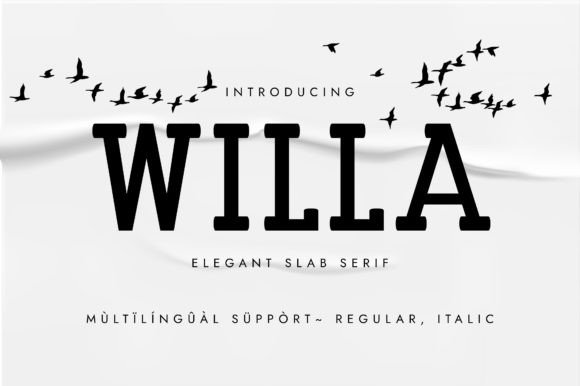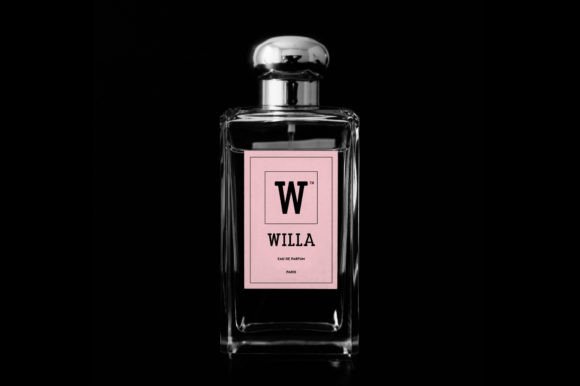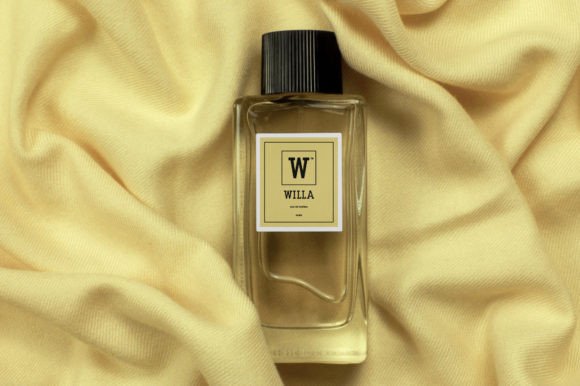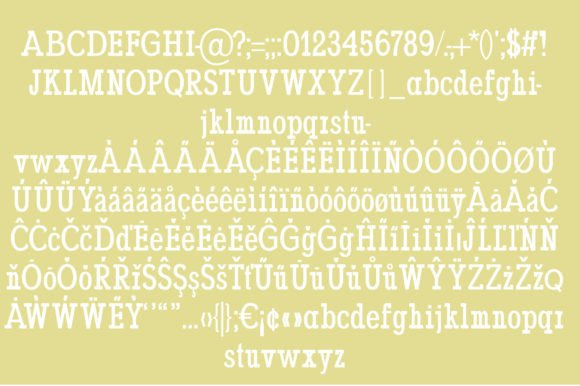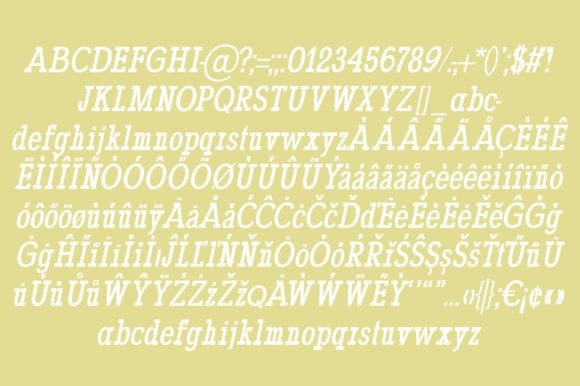
Willa
Willa: An Elegant and Minimalist Slab Serif Display Font
Willa is an elegant and minimalist slab serif typeface designed to be used as a display font. It adapts wonderfully to various contexts, making it perfect for designing labels for perfumes, cosmetics, magazine covers, posters, manifests, flyers, social posts, and fashion-related projects. Use it in your creations, and you’ll quickly notice how it becomes one of your favorite fonts.
Key Features of Willa
• Elegant Design: Offers a sophisticated and refined look suitable for various applications.
• Minimalist Style: Features clean lines and simple forms for a modern aesthetic.
• Slab Serif Structure: Incorporates distinctive serifs that add character while maintaining elegance.
• Versatile Application: Adapts well to different design contexts, especially in luxury and fashion industries.
Ideal Uses for Willa
Willa’s unique characteristics make it particularly well-suited for:
When incorporating Willa into your designs, consider these tips:
• Use for headlines or short blocks of text to showcase its elegant features.
• Experiment with different sizes to highlight the font’s minimalist charm.
• Utilize its versatility to create designs that evoke sophistication and modernity.
To sum up, Willa is an excellent choice for designers looking to add an elegant and minimalist slab serif display font to their toolkit. Its ability to adapt wonderfully to various contexts makes it stand out in the world of typography. Whether you’re working on perfume labels, creating magazine covers, or developing content for fashion brands, Willa offers the perfect blend of sophistication and versatility.
Moreover, Willa’s unique design allows it to shine in various applications where a touch of elegance is desired. From cosmetics packaging to social media posts, this font can elevate your projects with its distinctive style. Its minimalist yet refined appearance works particularly well in designs that aim to convey a sense of luxury and modernity.
In conclusion, Willa truly captures the essence of elegant, minimalist design in slab serif typography. Its versatility across different applications showcases its adaptability to various creative needs. For those looking to add a touch of sophisticated charm to their work, Willa can enhance themed creations with its unique style. Ultimately, it’s the perfect choice for designers seeking to make a refined, stylish impact across a wide range of creative projects.